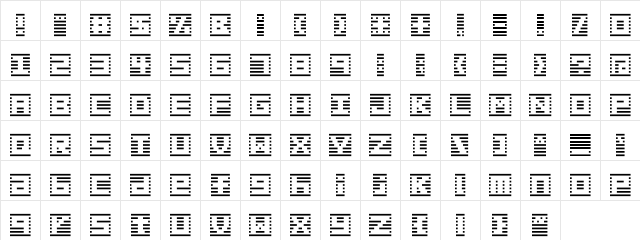
border7alp Regular Free Font
border7alp Regular
Design Context for border7alp
border7alp is a composed and adaptable typeface that performs quietly and consistently across a wide range of design contexts.